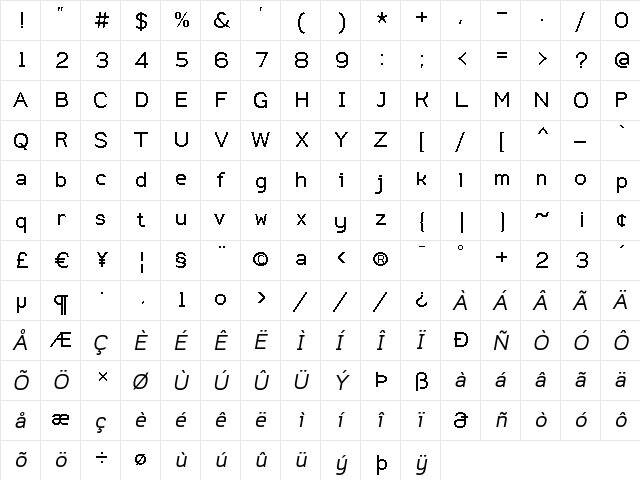
Do Gothic Oblique
Design Context for Do Gothic Typeface
Do Gothic has the quiet confidence of well-executed sans-serif typography: versatile, unobtrusive, and dependable at any size. The slanted form adds forward momentum and visual energy.
Font Pairing: Works well alongside a characterful serif or display font that can carry the expressive load while Do Gothic handles the functional copy.
Pro Tip: Use Do Gothic for UI labels, navigation, and short-form body copy where clean legibility is the priority.